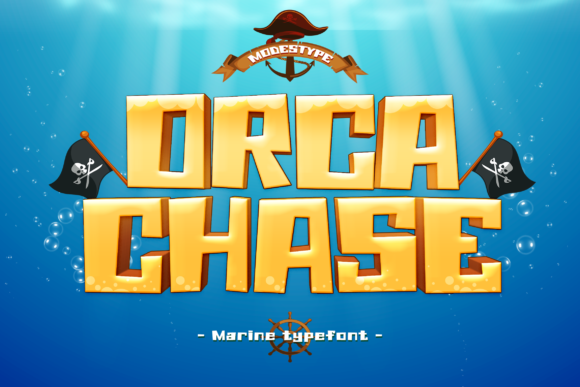
Step into a world of captivating visual aesthetics with Orca Chase, the ultimate display font meticulously crafted by Modestype Studio. Embark on a futuristic odyssey where creativity knows no bounds, as this typographic masterpiece unlocks a realm of possibilities for your digital endeavors.
Orca Chase is not just a font; it's an experience. Immerse yourself in a symphony of sleek lines, sharp angles, and dynamic curves that dance together in perfect harmony. This font exudes a captivating energy that instantly grabs attention, making it the perfect choice for those seeking to make a bold statement.
With its undeniable charm, Orca Chase effortlessly elevates your Instagram presence to new heights. Captivating stories, engaging posts, and eye-catching visuals come alive with a font that speaks to the modern, tech-savvy audience. Orca Chase seamlessly blends the allure of the digital world with a touch of timeless elegance.
Its versatility knows no limits. Craft stunning online game interfaces that transport players into immersive virtual realms. Create vibrant posters for teen events, capturing the youthful spirit and energy of the next generation. Design school supplies that spark creativity and imagination, leaving a lasting impression on young minds.
Unleash the cinematic power of Orca Chase in movie titles, captivating audiences with its striking presence. Craft captivating YouTube covers and thumbnails that entice viewers to click, promising an unforgettable visual experience. Transform social media page covers into dynamic canvases, expressing your unique personality and engaging your followers.
Orca Chase empowers you to transcend creative boundaries, transforming ordinary designs into extraordinary masterpieces. Its sleek and futuristic aesthetics resonate with the modern zeitgeist, making it the ideal choice for forward-thinking individuals and businesses alike.